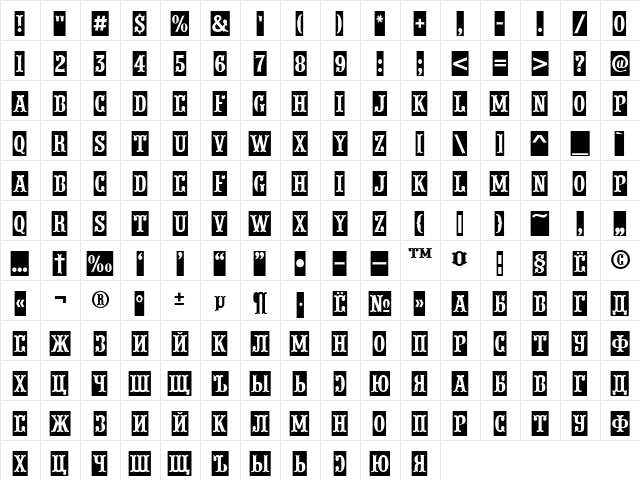
a_PresentumCmNr Regular
Design Context for a_PresentumCmNr Typeface
a_PresentumCmNr is a composed and adaptable typeface that performs quietly and consistently across a wide range of design contexts.